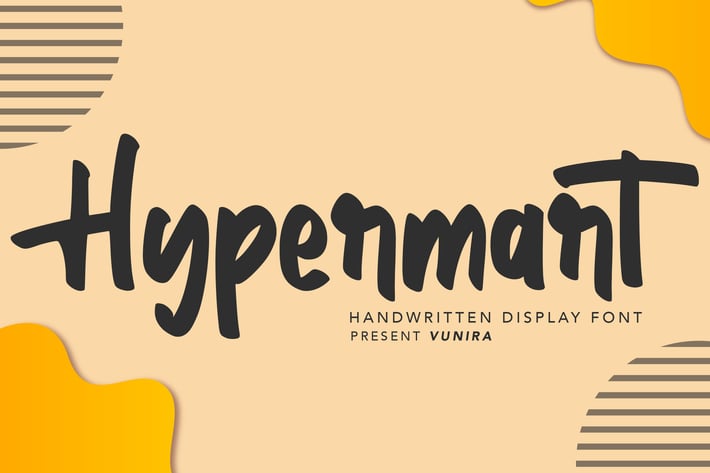
Hypermart | Handwritten Display Font
Hypermart | Handwritten Display Font with a calligraphy style, So beautiful on invitation like greeting cards, branding materials, business cards, quotes, posters, and more!